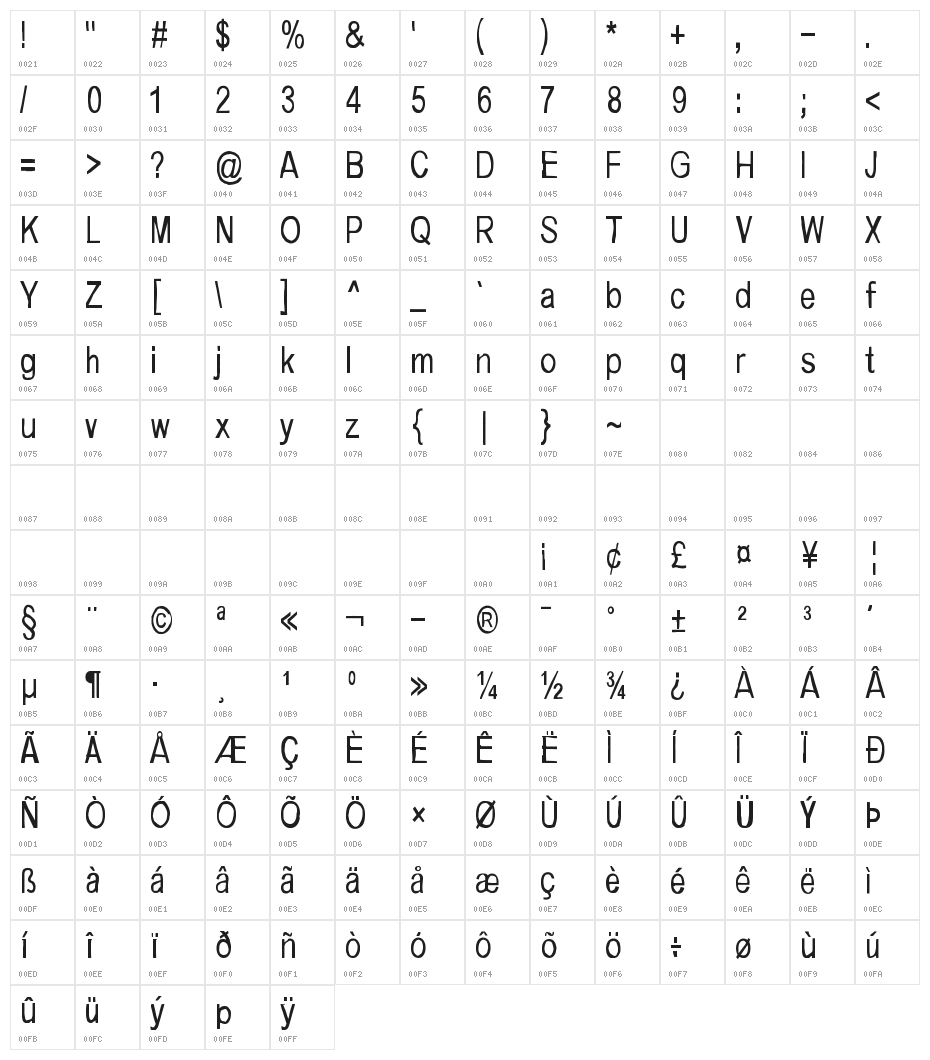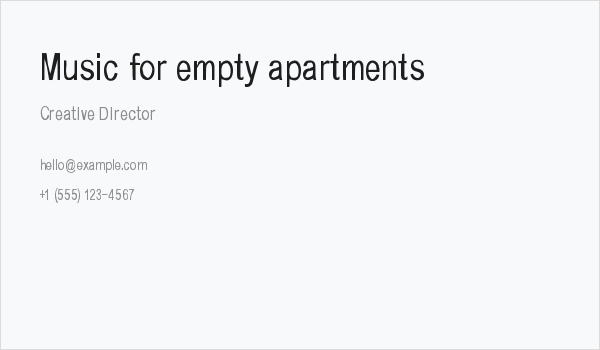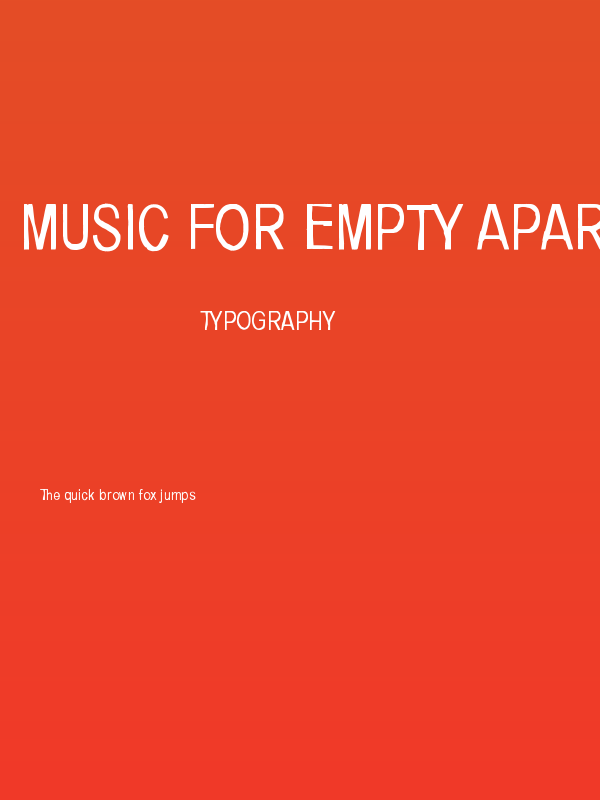
Music for empty apartments Font
Music for empty apartments Description
This font features a clean and modern sans-serif design with a straightforward and utilitarian aesthetic. The characters are well-proportioned, offering a balanced and harmonious look. The uppercase letters are bold and impactful, while the lowercase letters maintain a consistent and readable form. The numerals are clear and distinct, making them suitable for various applications. Special characters are included, providing versatility for different contexts. The overall style is minimalistic, making it ideal for contemporary design projects where clarity and simplicity are paramount.